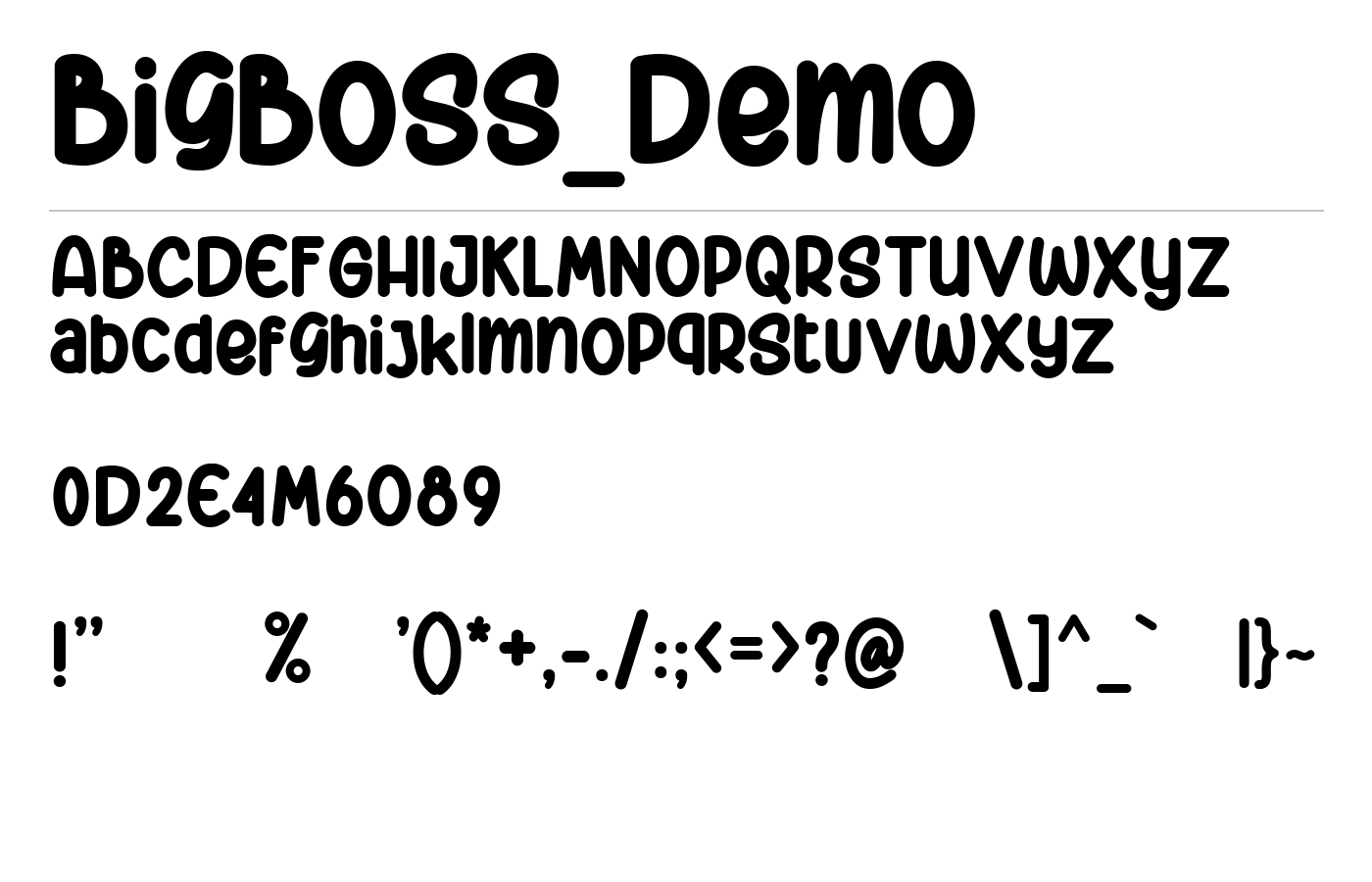
BigBoss_Demo is a playful, bold sans serif font with rounded, friendly letterforms that give it a casual and approachable feel. Its consistent stroke weight and slightly condensed proportions make it ideal for eye-catching headlines or fun branding projects where a relaxed and warm personality is desired. This font works well for logos, posters, or children’s content thanks to its clear readability and lively character.
BigBoss_Demo Font
About BigBoss_Demo Font
| Font family | BigBoss_Demo Font |
| Designer | Almaz Studio |